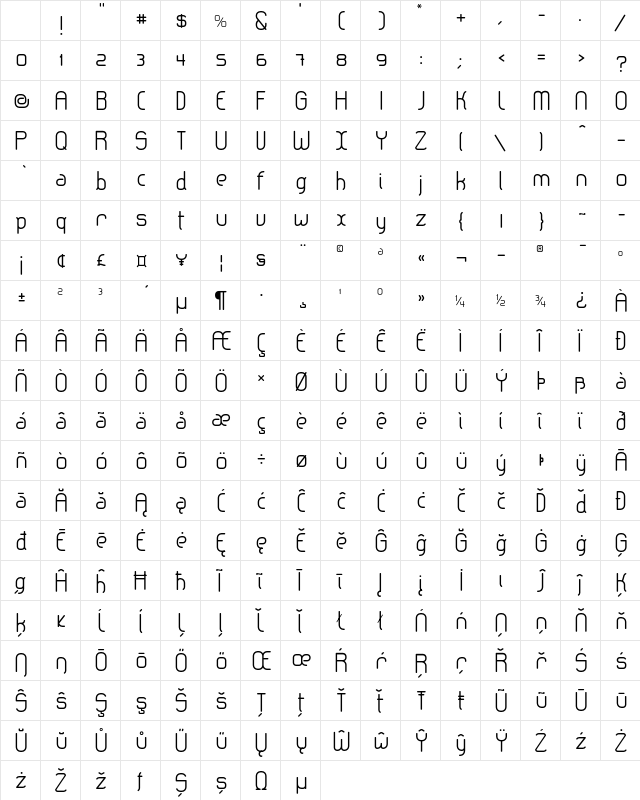
Complete lerotica-semilight Regular glyph index. Displaying only characters natively supported by lerotica-semilight Regular font.
lerotica-semilight is a composed and adaptable typeface that performs quietly and consistently across a wide range of design contexts. Its slender proportions lend an understated elegance to any composition.